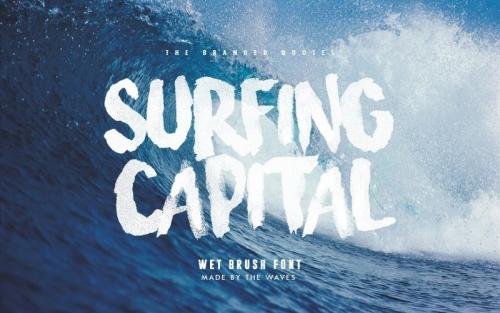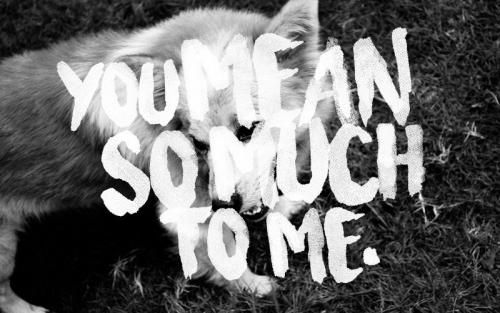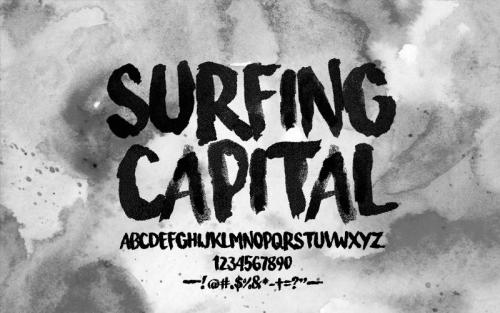
Surfing Capital font is inspired by the extreme passion on riding ocean waves! The natural and imperfect shapes of it works well with its own texture effect.
Meets the need for that vintage yet edgy feel for your designs and photographs. One of a kind that it got a great response from all over the world. Check how the examples look like they were painted on your screen!
Update: Because of worldwide demand, we upgraded the Surfing Capital font! Numerals and some Punctuations are now available. Also an Opentype Version is included. The spacing between the characters has been updated too!